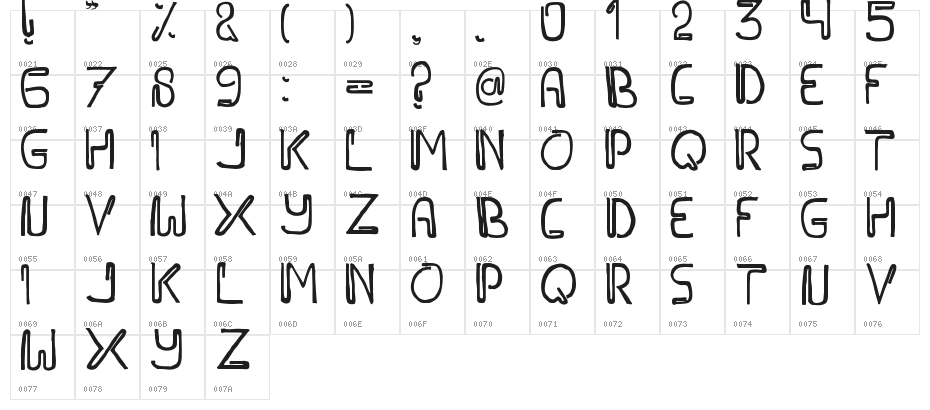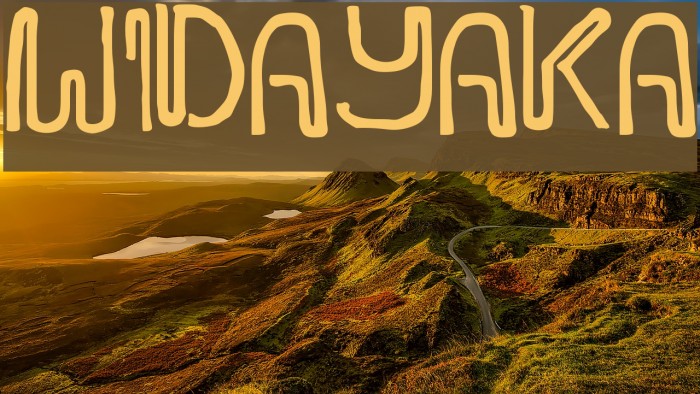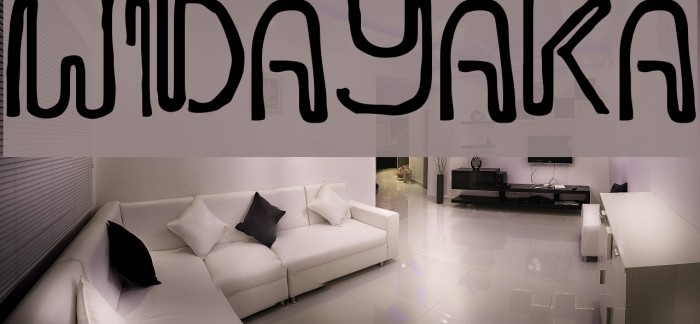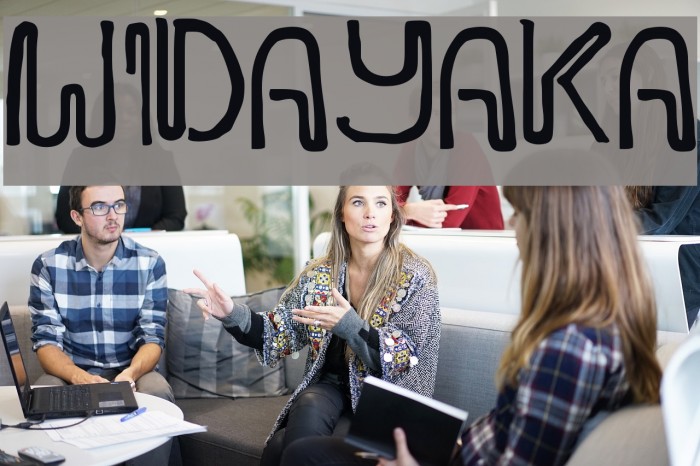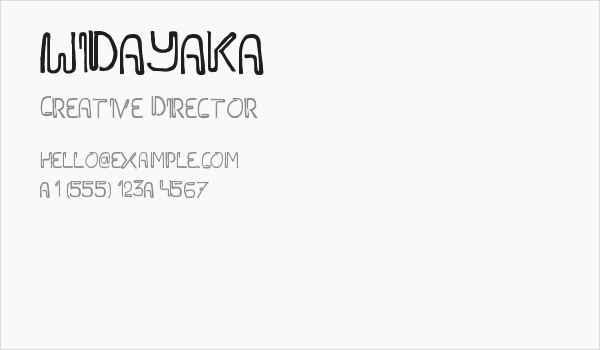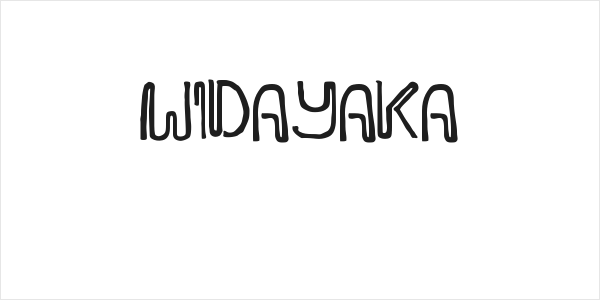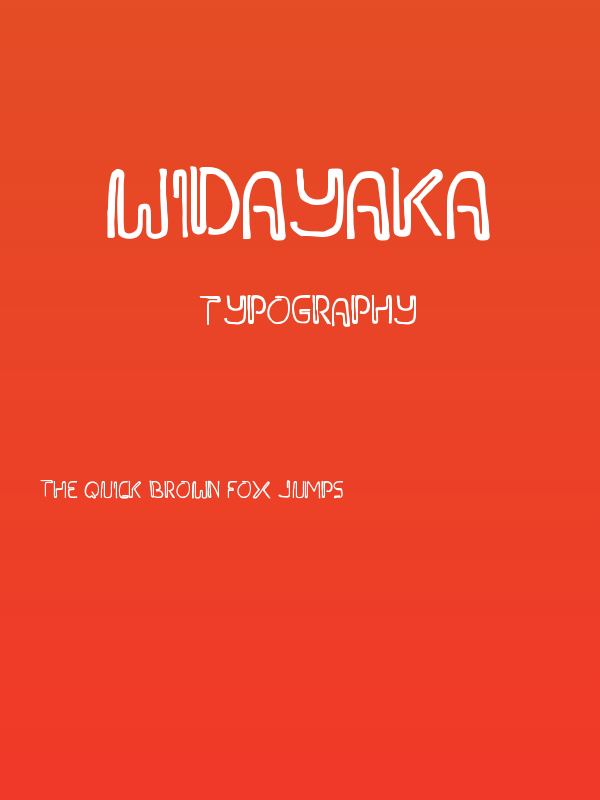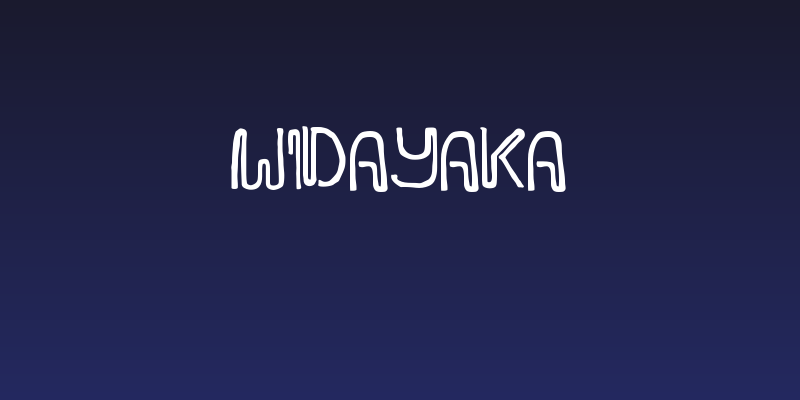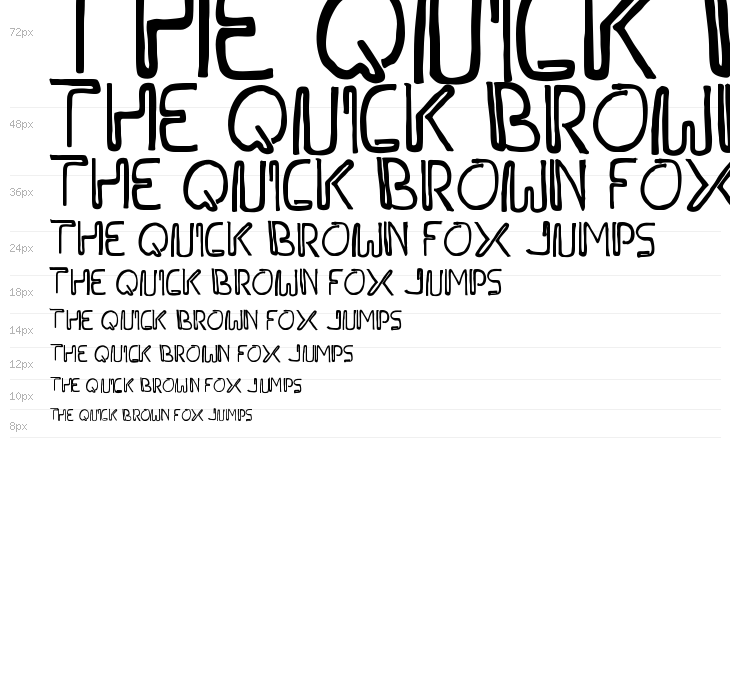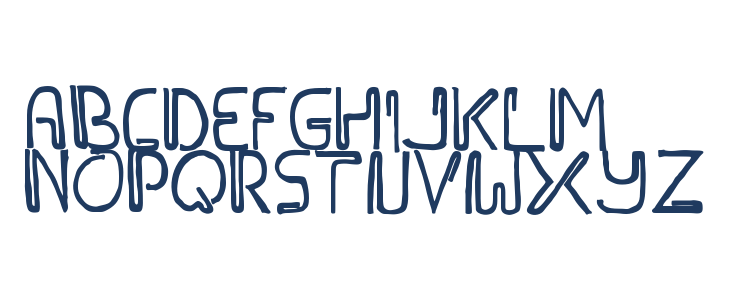
WIDAYAKA Font
WIDAYAKA Description
This font features a unique and playful design, characterized by its rounded edges and slightly irregular shapes. The letters have a hand-drawn quality, giving them a whimsical and artistic appearance. The uppercase and lowercase letters maintain a consistent style, with a slight slant that adds to the dynamic feel of the font. The numbers and special characters are designed to match the overall aesthetic, ensuring a cohesive look across all text elements. This font's distinctive style makes it stand out, offering a creative touch to any project.
| Overall Style | Whimsical, Artistic |
| Proposed Projects | Ideal for children's books, creative branding, playful posters, and artistic invitations. |